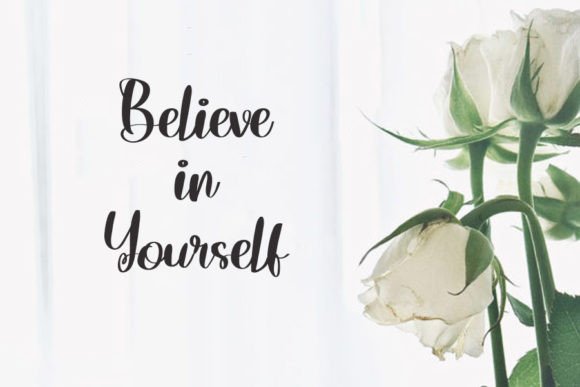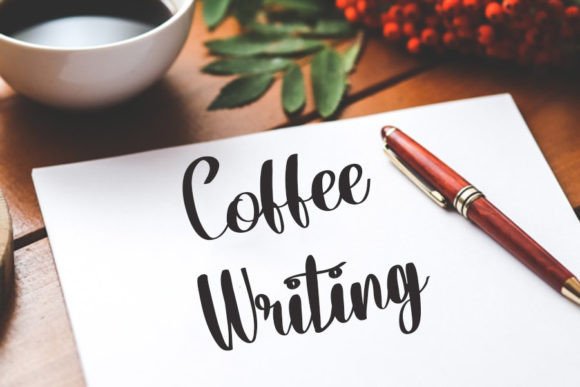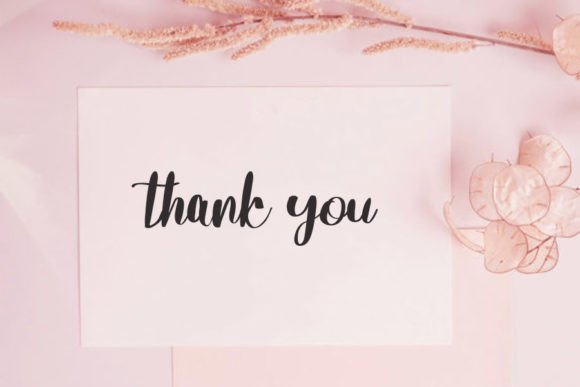
Happy Birthday Font
About Happy Birthday Font
Happy Birthday Font is a luxurious handwritten typeface that adds an elegant and timeless flair to your creative work. Its distinctive style makes it perfect for birthday invitations, greeting cards, celebration banners, and other special projects. This font combines beauty with sophistication, helping you craft spectacular designs that leave a lasting impression.
Elegant and Timeless Design
Happy Birthday features smooth, flowing strokes and well-balanced letterforms that blend clarity with grace. Its elegant character makes it suitable for a wide range of occasions, ensuring your projects look polished and memorable.
Ideal Uses for Happy Birthday Font
This font is ideal for:
• Birthday invitations and party decorations
• Celebration banners and posters
• Social media graphics and digital marketing
• Personalized gifts and stationery
Happy Birthday brings a luxurious and festive vibe to every design.
Why Choose Happy Birthday Font?
Designers choose Happy Birthday for its:
• Luxurious and elegant handwritten style
• Clear readability combined with artistic flair
• Versatility across print and digital media
These features make Happy Birthday a practical and beautiful font choice.
Add Luxury and Charm to Your Celebrations
Typography plays a vital role in setting the mood. Happy Birthday adds a luxurious, elegant personality to your projects, making your celebrations feel special and heartfelt. Whether for parties, branding, or personal use, this font elevates your creative work.
In summary, Happy Birthday Font is a luxurious and elegant handwritten script perfect for designers looking to add a timeless and festive touch. Add Happy Birthday to your font library to create stunning and memorable celebration designs.